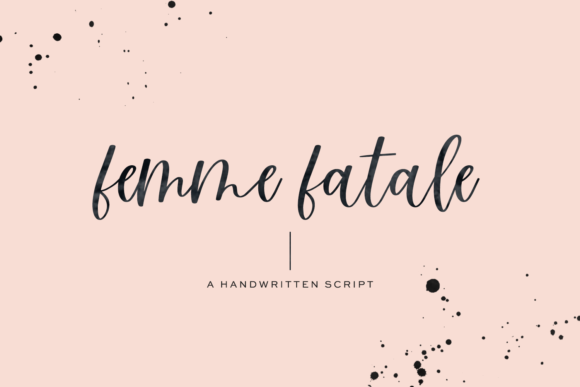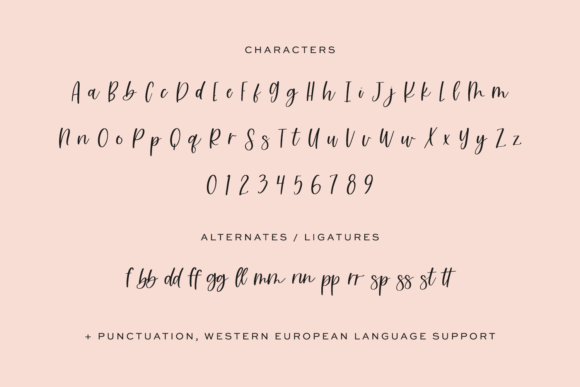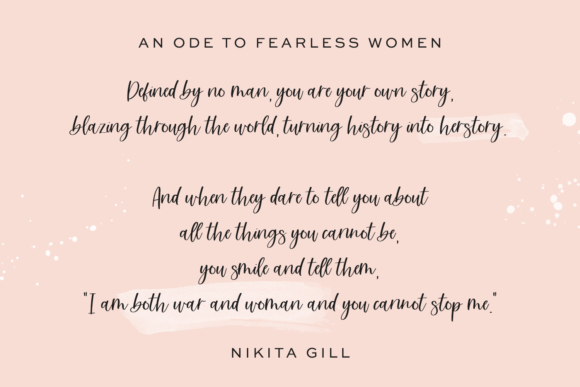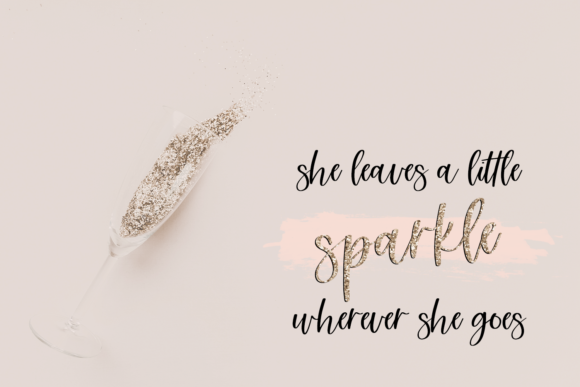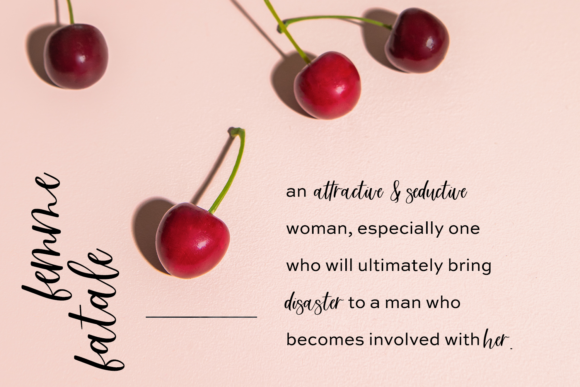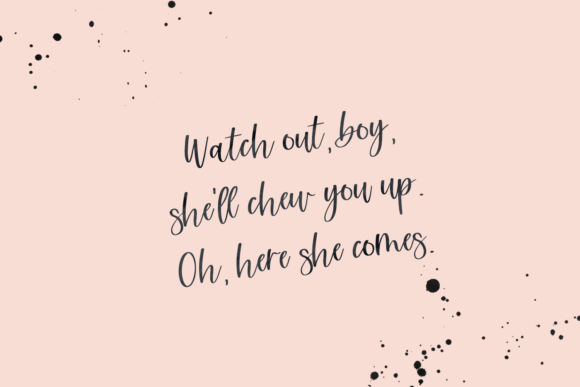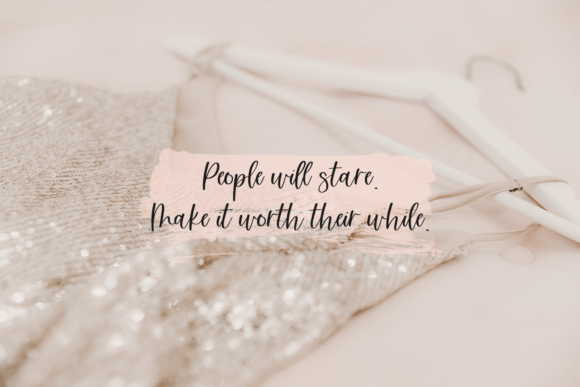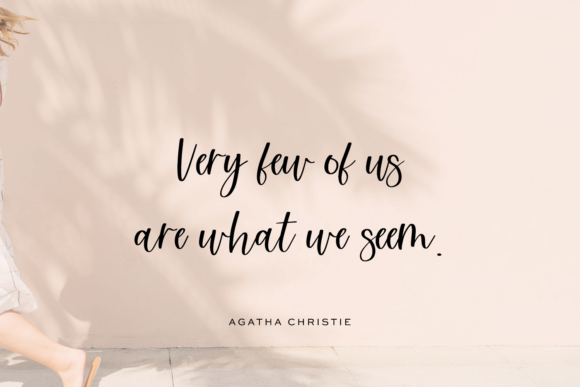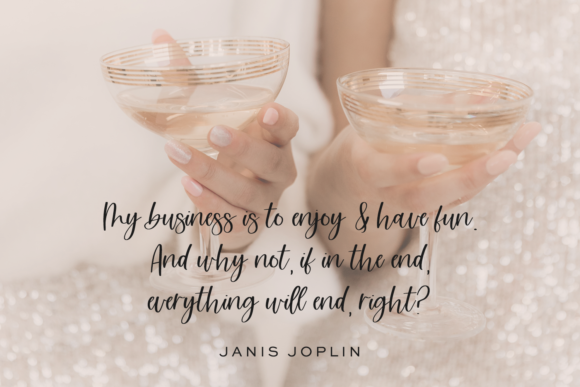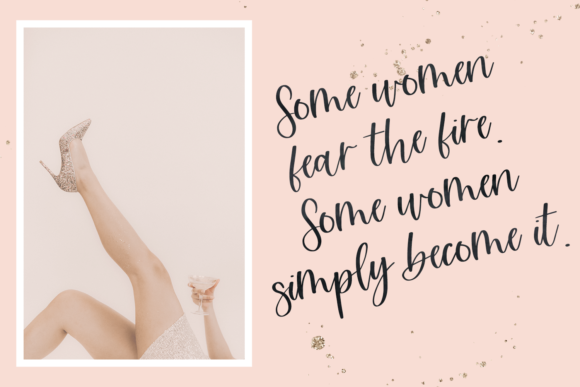
Femme Fatale Font
About Femme Fatale Font
Femme Fatale is a modern calligraphy script with an effortless appearance! It will add a romantic touch to any crafting project.